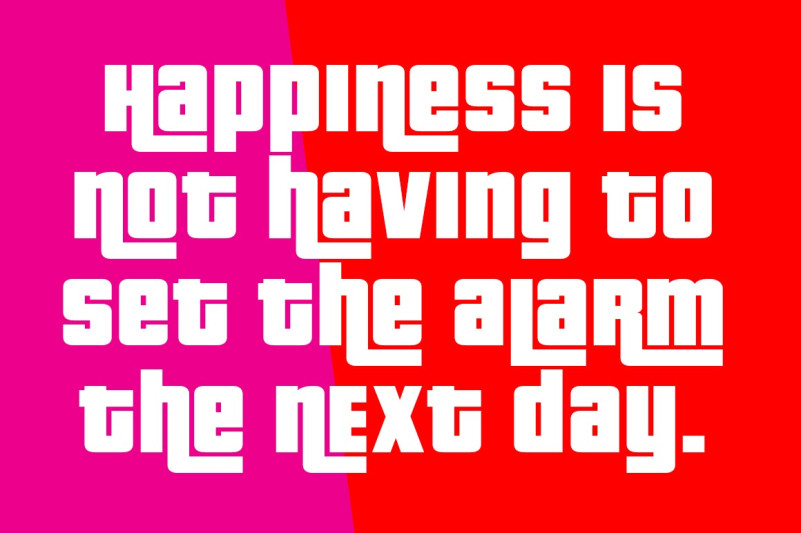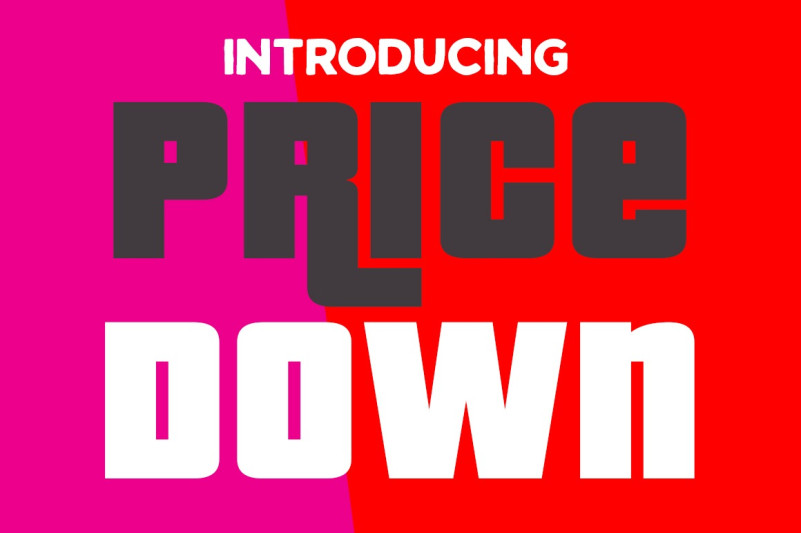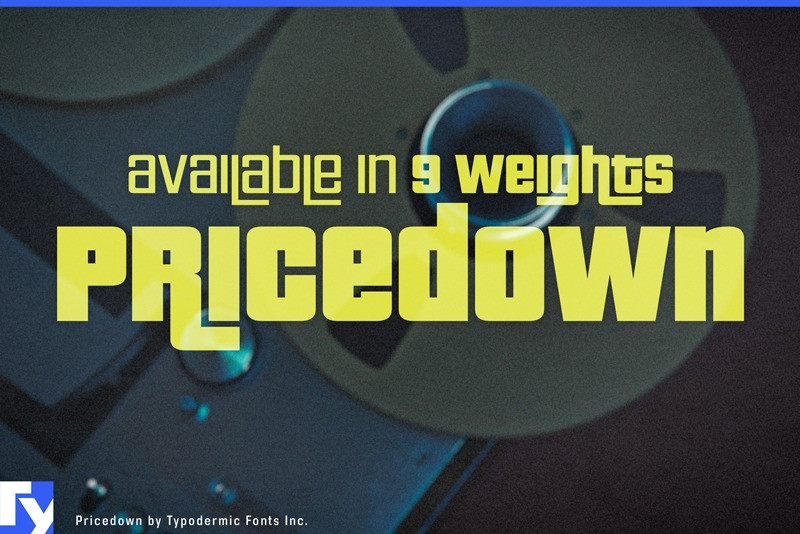
Pricedown Font
Pricedown Font is a funky display font with tons of sass and nostalgia. This display is ideal for a wide range of projects, and comes to us as a free font from Typodermic.
Pricedown is an interpretation of an early 1970s display typeface called Pinto Flare. It was famously used as the logotype for the US game show, The Price is Right as well as Technos Japan’s Tag Team Wrestling video game in 1986. Pricedown was released in early 2000 and appeared in the Grand Theft Auto III logotype in late 2001. In OpenType savvy applications, some character combinations will interlock. For example, when the H is followed by the I, a swash tail will tuck under the I. If you’d like to disable this effect, turn off the standard ligatures feature in your application. Pricedown is available in nine weights so you can skilfully attenuate its impact. Most Latin-based European, Vietnamese, Greek, and most Cyrillic-based writing systems are supported, including the following languages. Afaan Oromo, Afar, Afrikaans, Albanian, Alsatian, Aromanian, Aymara, Azerbaijani, Bashkir, Bashkir (Latin), Basque, Belarusian, Belarusian (Latin), Bemba, Bikol, Bosnian, Breton, Bulgarian, Buryat, Cape Verdean, Creole, Catalan, Cebuano, Chamorro, Chavacano, Chichewa, Crimean Tatar (Latin), Croatian, Czech, Danish, Dawan, Dholuo, Dungan, Dutch, English, Estonian, Faroese, Fijian, Filipino, Finnish, French, Frisian, Friulian, Gagauz (Latin), Galician, Ganda, Genoese, German, Gikuyu, Greenlandic, Guadeloupean Creole, Haitian Creole, Hawaiian, Hiligaynon, Hungarian, Icelandic, Igbo, Ilocano, Indonesian, Irish, Italian, Jamaican, Kaingang, Khalkha, Kalmyk, Kanuri, Kaqchikel, Karakalpak (Latin), Kashubian, Kazakh, Kikongo, Kinyarwanda, Kirundi, Komi-Permyak, Kurdish, Kurdish (Latin), Kyrgyz, Latvian, Lithuanian, Lombard, Low Saxon, Luxembourgish, Maasai, Macedonian, Makhuwa, Malay, Maltese, Māori, Moldovan, Montenegrin, Nahuatl, Ndebele, Neapolitan, Norwegian, Novial, Occitan, Ossetian (Latin), Papiamento, Piedmontese, Polish, Portuguese, Quechua, Rarotongan, Romanian, Romansh, Russian, Rusyn, Sami, Sango, Saramaccan, Sardinian, Scottish Gaelic, Serbian, Serbian (Latin), Shona, Sicilian, Silesian, Slovak, Slovenian, Somali, Sorbian, Sotho, Spanish, Swahili, Swazi, Swedish, Tagalog, Tahitian, Tajik, Tatar, Tetum, Tongan, Tshiluba, Tsonga, Tswana, Tumbuka, Turkish, Turkmen (Latin), Tuvaluan, Ukrainian, Uzbek, Uzbek (Latin), Venda, Venetian, Vepsian, Vietnamese, Võro, Walloon, Waray-Waray, Wayuu, Welsh, Wolof, Xavante, Xhosa, Yapese, Zapotec, Zarma, Zazaki, Zulu and Zuni.